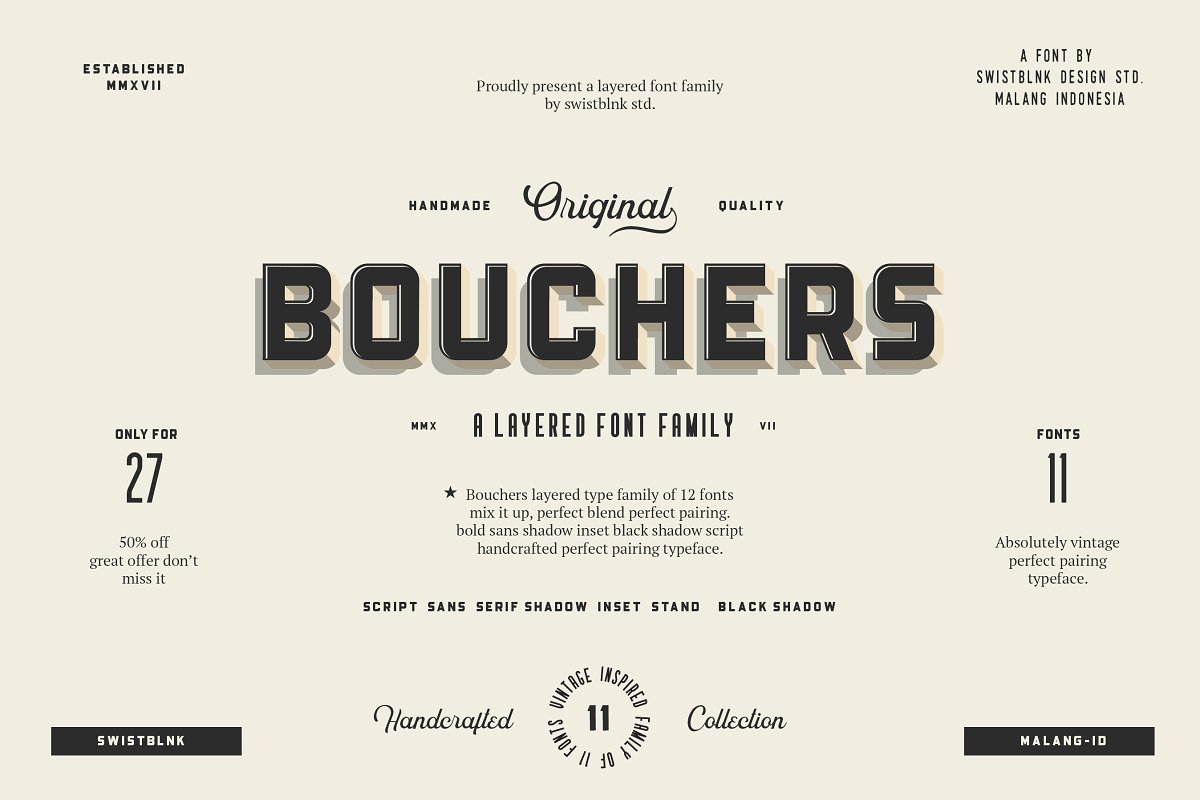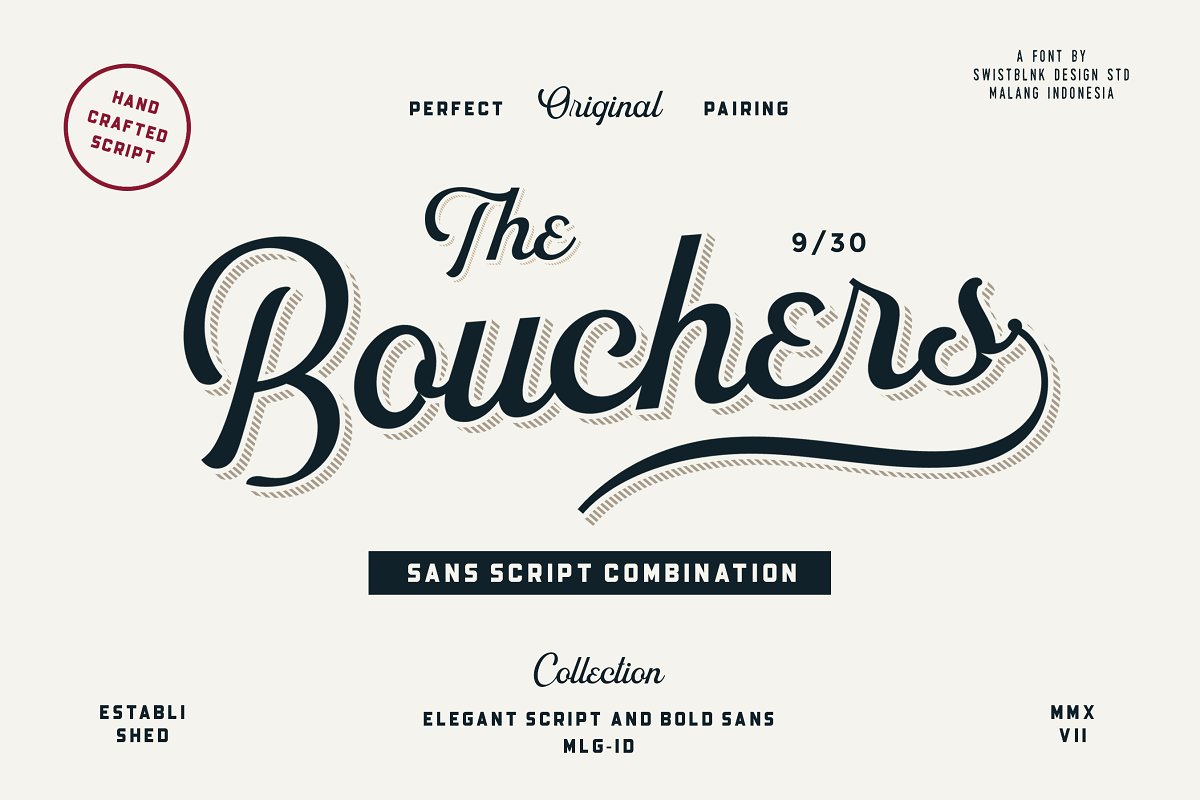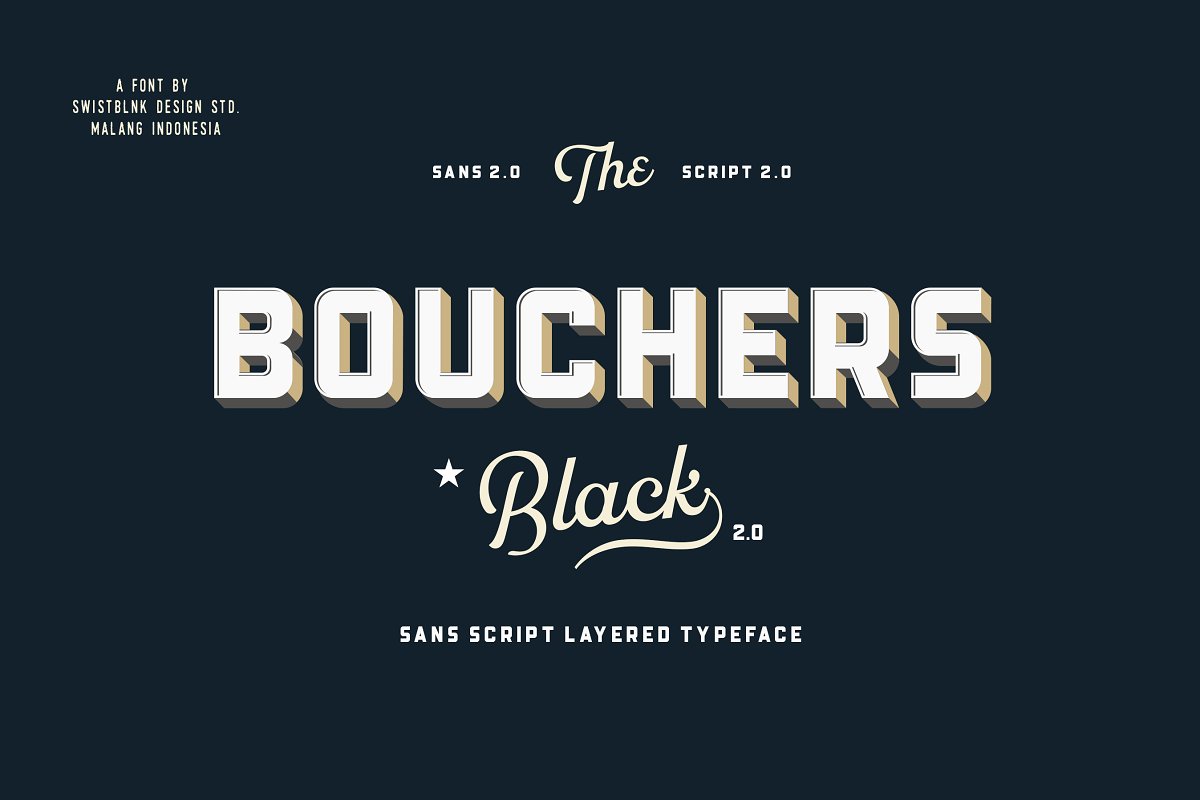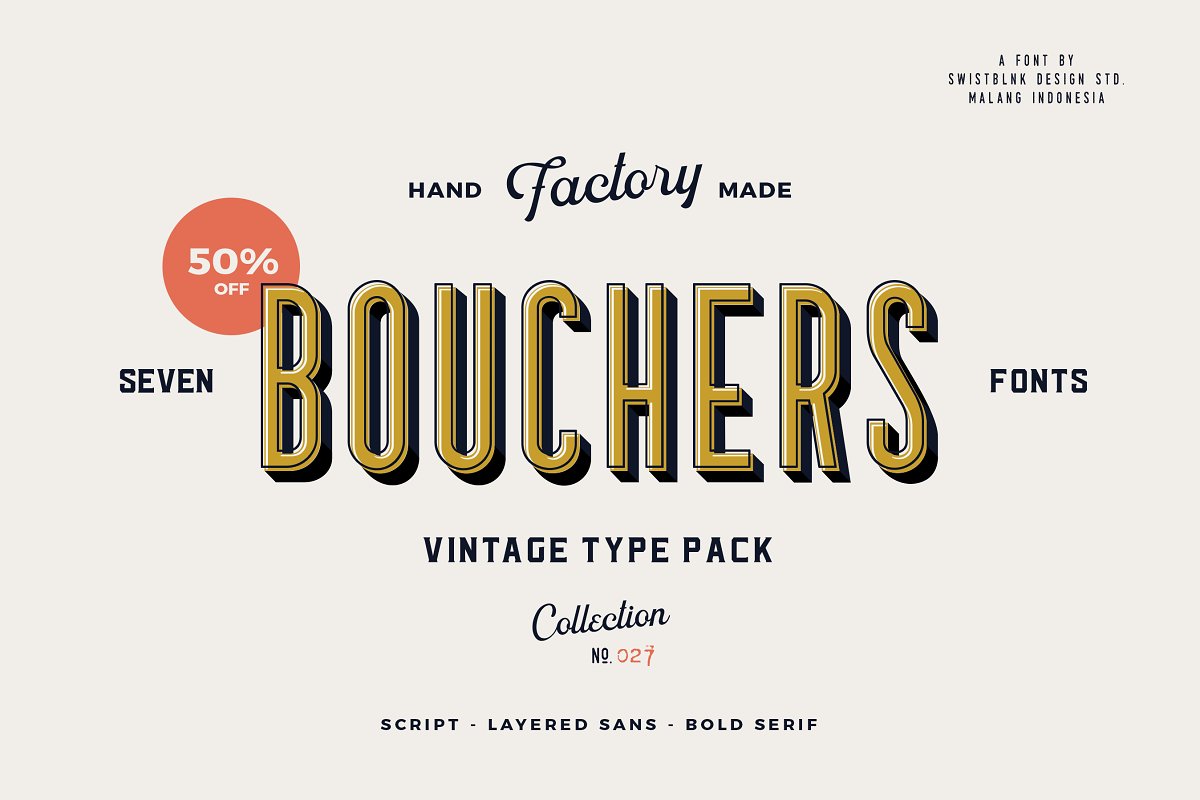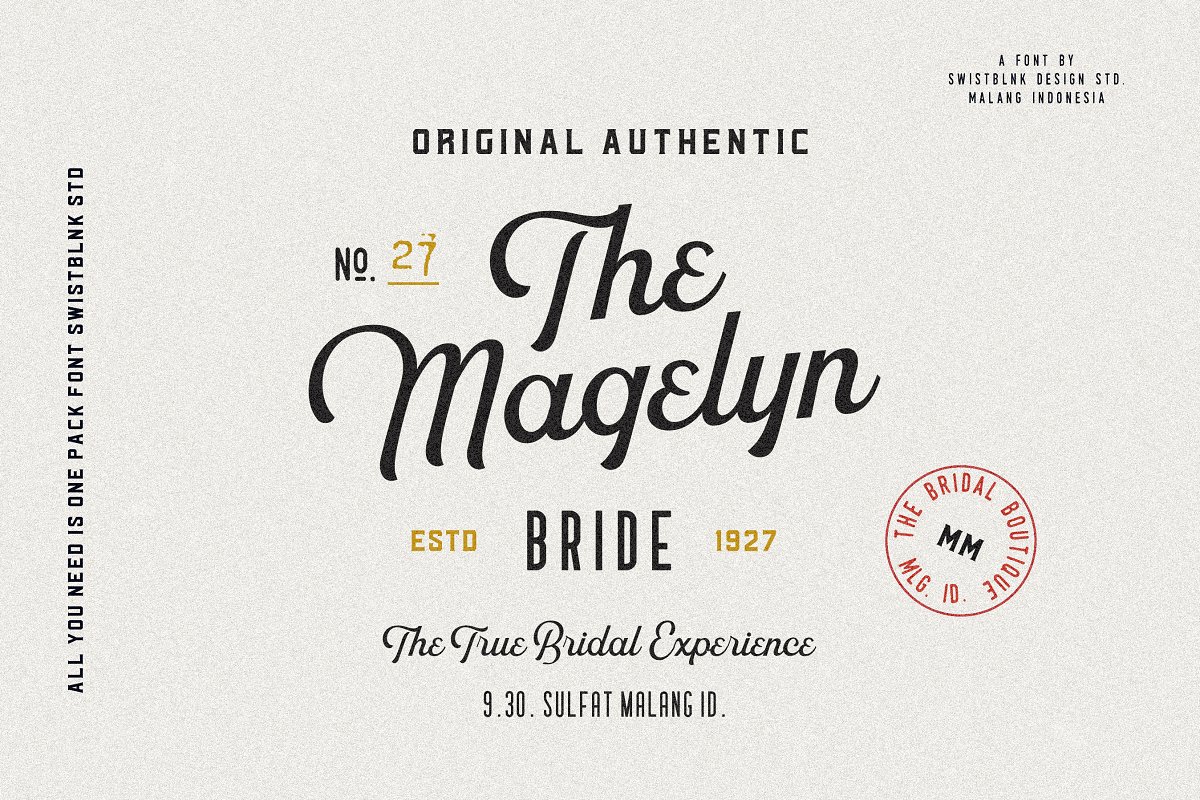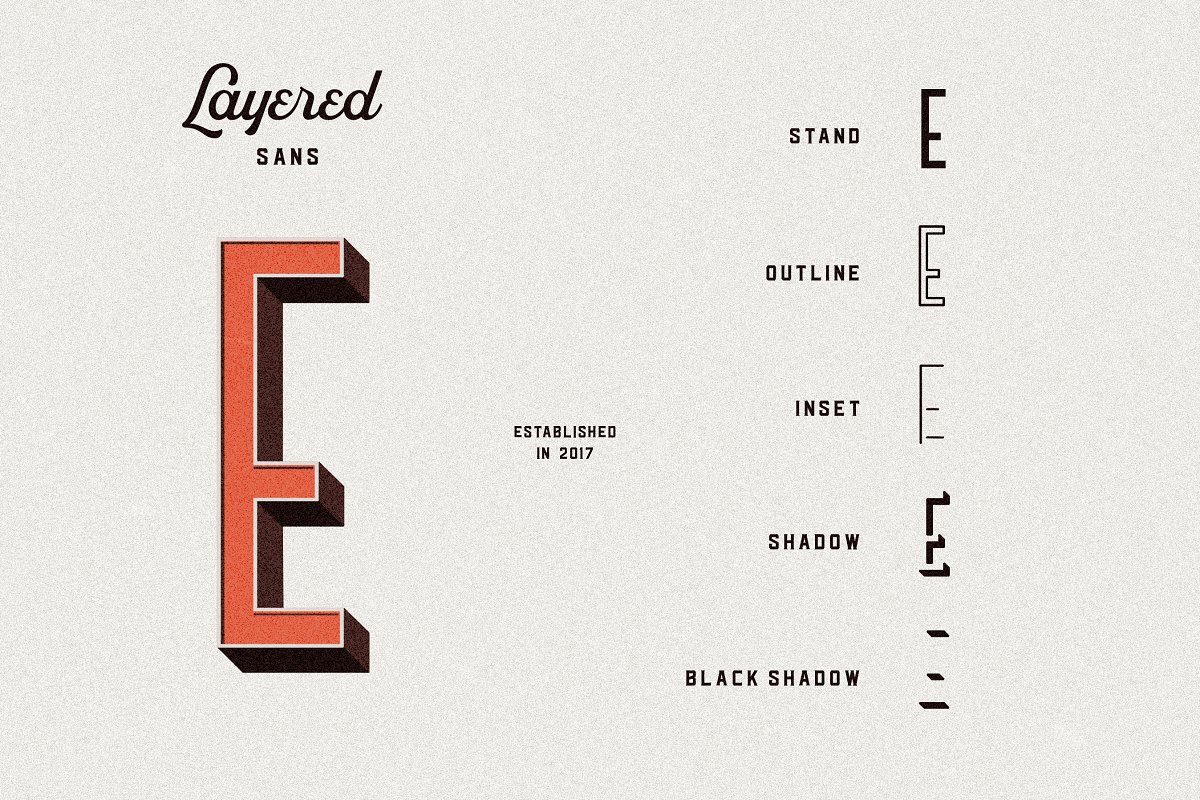
About the Bouchers Layered | Font Bundle
Here’s what’s included :Bouchers StandBouchers OutlineBouchers InsetBouchers ShadowBouchers Black ShadowBouchers SerifBouchers Script 2, 0Bouchers Sans 2, 0Bouchers Sans InsetBouchers Sans ShadowBouchers Sans Black ShadowBouchers Font Family Features :UppercaseLowercaseNumerals & PunctuationsAccents (Multilingual characters in some fonts)PUA EncodedSuitable for Headlines, Logotypes, Signs, Posters, Letterhead, T-Shirt and many more